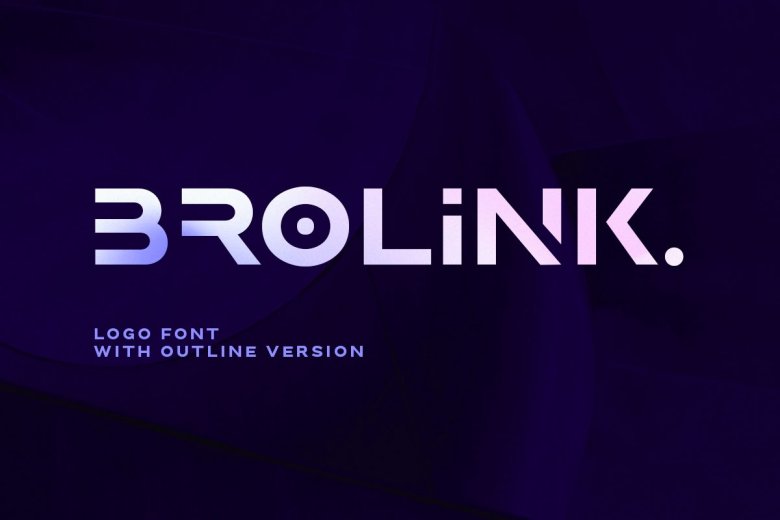
Brolink Font
Brolink is a cool, modern and techno display font. This font would be ideal for writing web designs, business cards, or pretty much anything else that requires a unique touch.